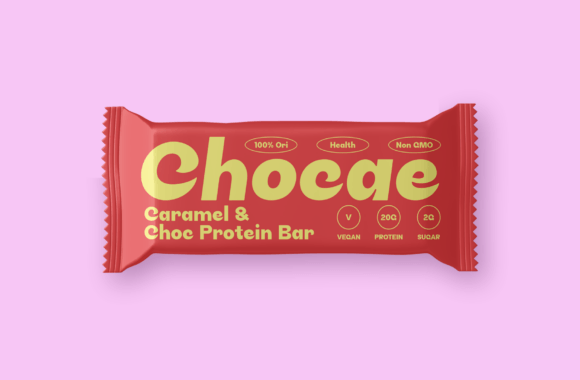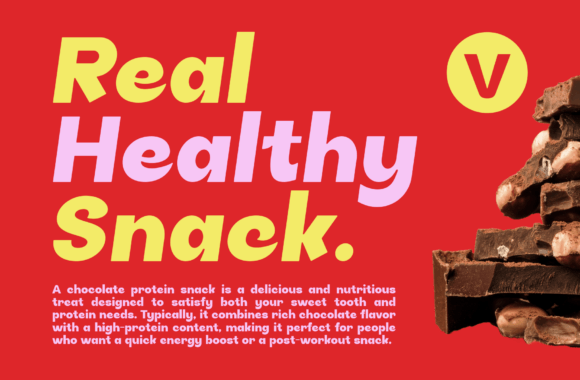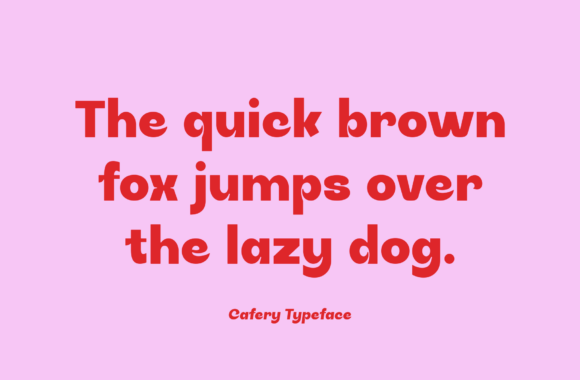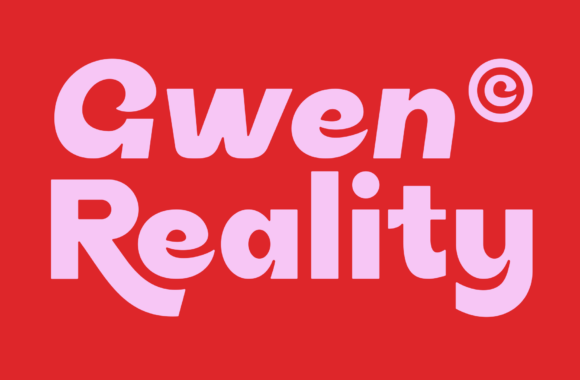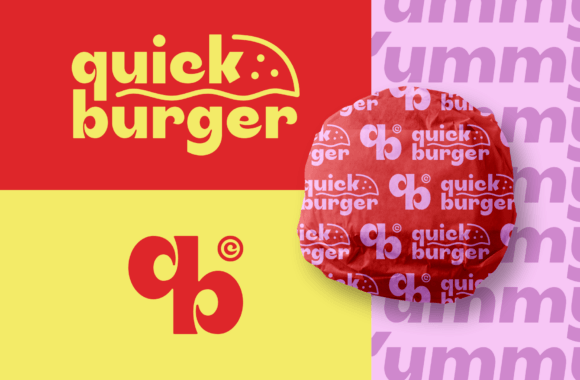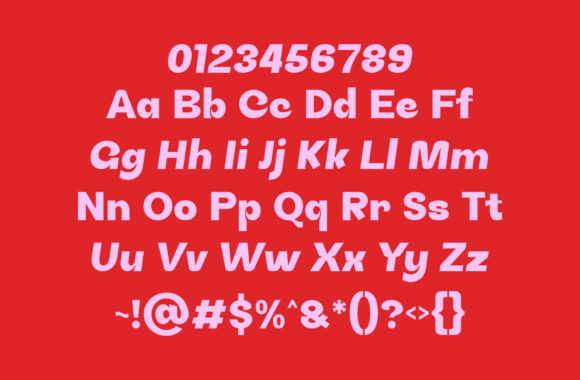
Introducing Cafery Font: A Modern Bold Sans Serif Typeface
In the world of typography, a font can make all the difference in the visual impact of a design. For designers and crafters looking for a modern and bold aesthetic, Cafery Font is an excellent choice. This sans serif typeface is distinguished by its unique and thick letterforms, offering two styles: regular and italic. The versatility of Cafery Font makes it perfect for various design applications, including product packaging, brand identity, and more.
Unique Features of Cafery Font
Cafery Font stands out with several unique features that set it apart from other typefaces. One of its notable features is the inclusion of unique ligatures and alternate characters. These special characters allow for creative and customized typographic expression, giving designers the freedom to experiment with different styles and effects. The bold and contemporary aesthetic of Cafery Font makes it an excellent choice for designers looking to make a statement.
Design Applications of Cafery Font
The clean, striking appearance of Cafery Font enhances visual impact, making it ideal for projects that require both modernity and boldness. Some of the design applications where Cafery Font excels include:
- Product Packaging: Cafery Font is perfect for product packaging designs that require a bold and modern aesthetic. Its unique letterforms and ligatures can help create eye-catching labels and branding.
- Brand Identity: For businesses looking to establish a strong brand identity, Cafery Font is an excellent choice. Its bold and contemporary aesthetic can help create a lasting impression on customers.
- Advertising and Marketing: Cafery Font can be used in advertising and marketing materials to grab attention and convey a sense of modernity and boldness.
- Graphic Design: Cafery Font can be used in various graphic design projects, such as brochures, flyers, and posters, to add a touch of modernity and sophistication.
Benefits of Using Cafery Font
Using Cafery Font in design projects offers several benefits, including:
- Improved Visual Impact: The bold and striking appearance of Cafery Font can help grab attention and improve the visual impact of a design.
- Increased Creativity: The unique ligatures and alternate characters of Cafery Font provide designers with the freedom to experiment with different styles and effects.
- Versatility: Cafery Font offers two styles, regular and italic, making it versatile for various design applications.
- Modern Aesthetic: Cafery Font’s modern and bold aesthetic makes it perfect for designers looking to create contemporary and stylish designs.
Tips for Using Cafery Font Effectively
To get the most out of Cafery Font, here are some tips for using it effectively:
- Use it Sparingly: Cafery Font is a bold and striking typeface, so it’s best to use it sparingly to avoid overwhelming the design.
- Experiment with Ligatures: Take advantage of Cafery Font’s unique ligatures and alternate characters to add creativity and interest to your design.
- Pair it with Other Fonts: Cafery Font can be paired with other fonts to create a unique and visually appealing design.
- Consider the Context: Consider the context in which Cafery Font will be used and adjust the design accordingly.
In conclusion, Cafery Font is a modern bold sans serif typeface that offers a unique and striking aesthetic. Its versatility, creativity, and modernity make it an excellent choice for various design applications. By understanding the features and benefits of Cafery Font, designers and crafters can create stunning designs that grab attention and leave a lasting impression.